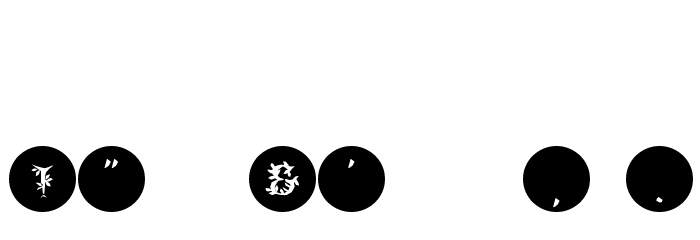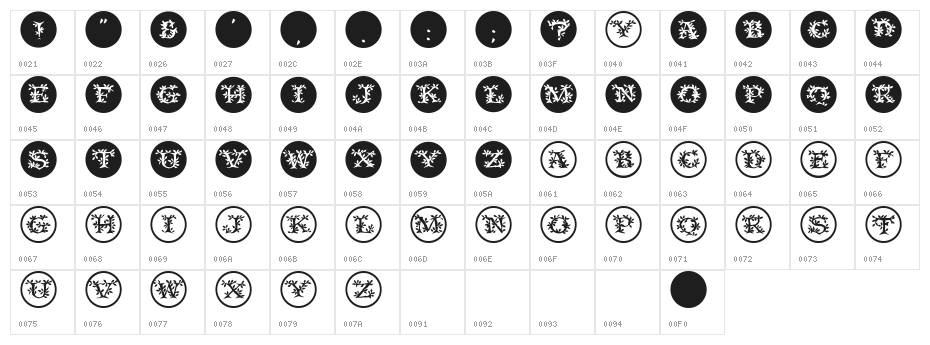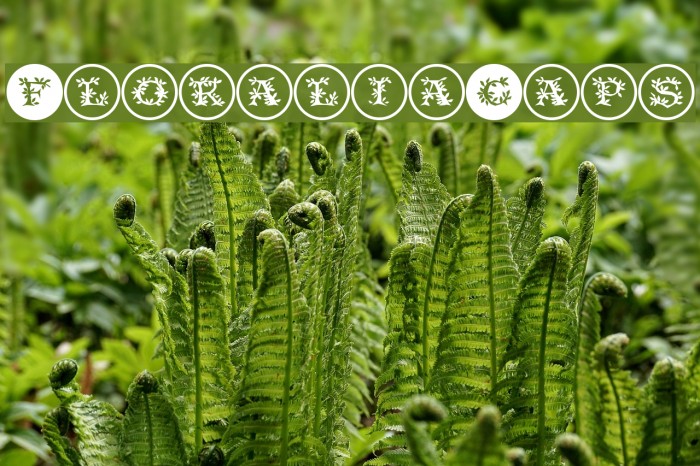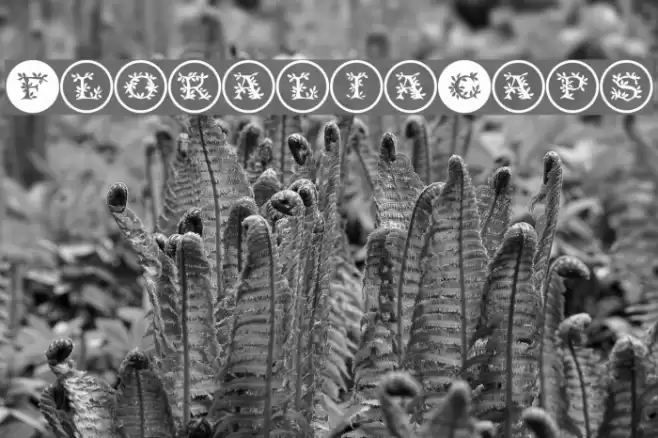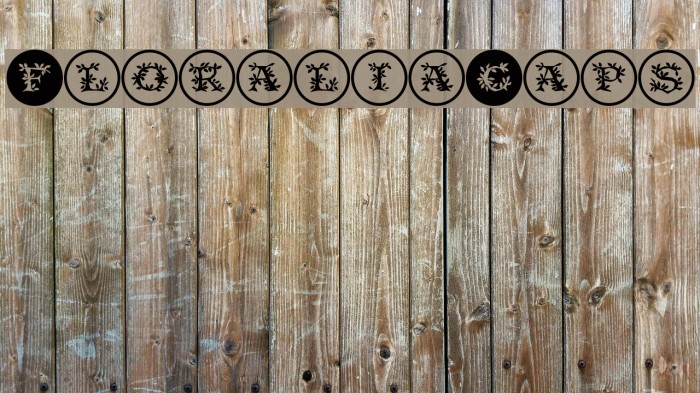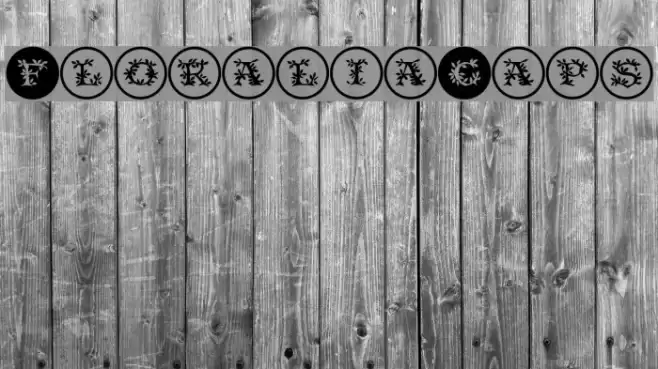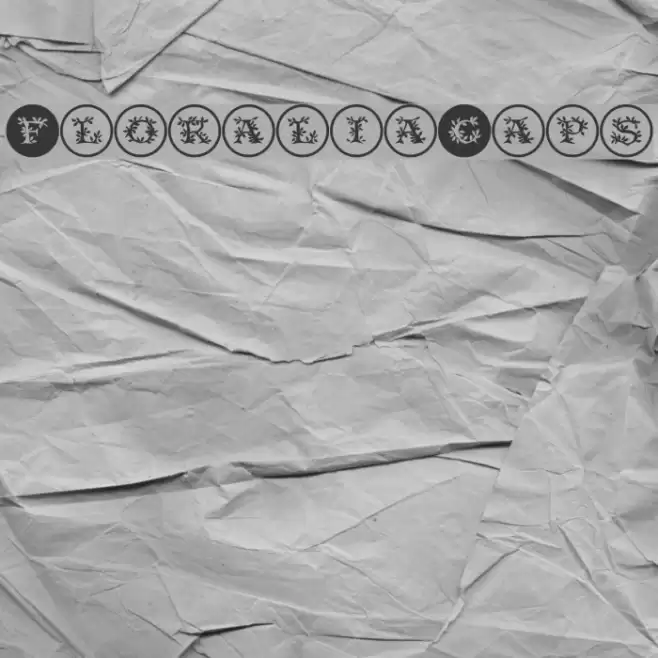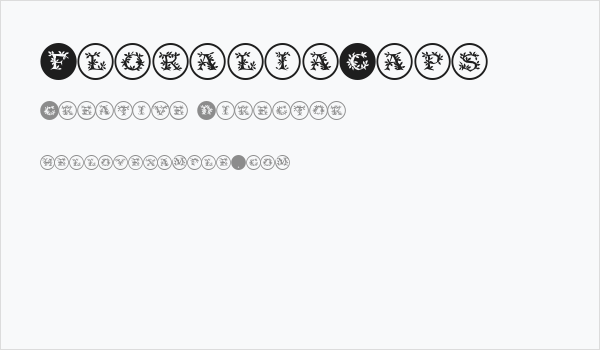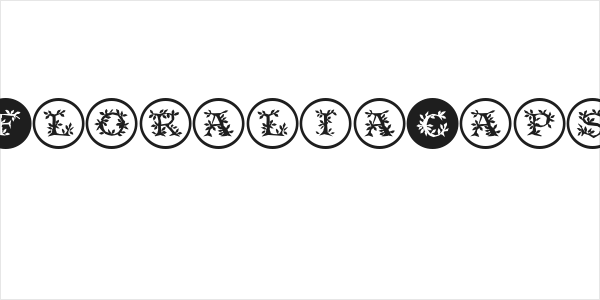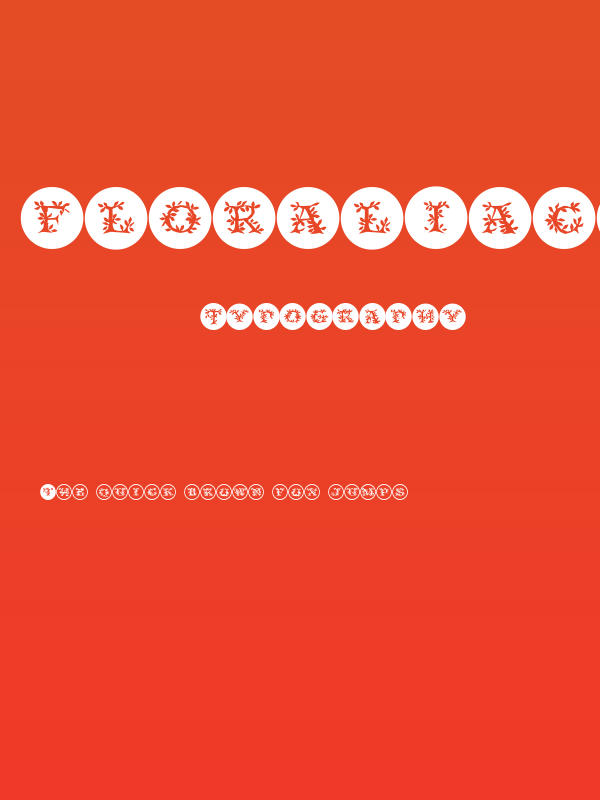
FloraliaCaps Font
FloraliaCaps Description
This font features ornate, floral embellishments that intertwine with each letter, creating an intricate and decorative appearance. Each character is encased in a circular border, enhancing its ornamental style. The design is reminiscent of vintage botanical illustrations, with delicate vines and leaves wrapping around the letters. This font is particularly suited for decorative purposes where a touch of elegance and nature-inspired aesthetics are desired. The intricate details make it ideal for projects that require a sophisticated and artistic touch.
| Overall Style | Vintage, Decorative |
| Proposed Projects | Ideal for wedding invitations, greeting cards, book covers, and decorative posters. |